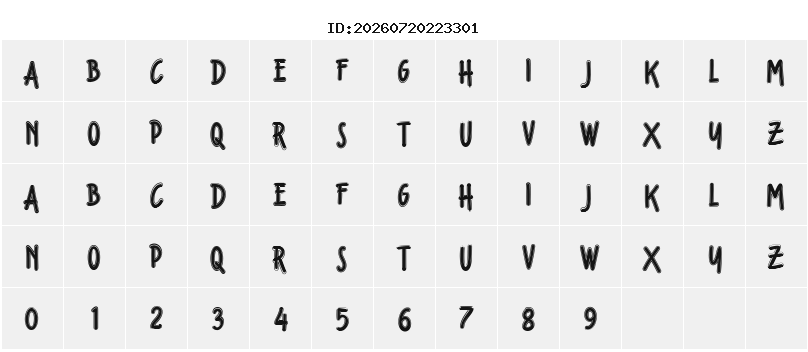
• Font Name: Fondian Outline
• Designer: Arwan Sutanto
About Fondian Outline.ttf
Fondian Outline.ttf is a modern, elegant sans-serif font designed for ultimate readability and visual harmony. Perfect for branding, headlines, web design, and print materials.